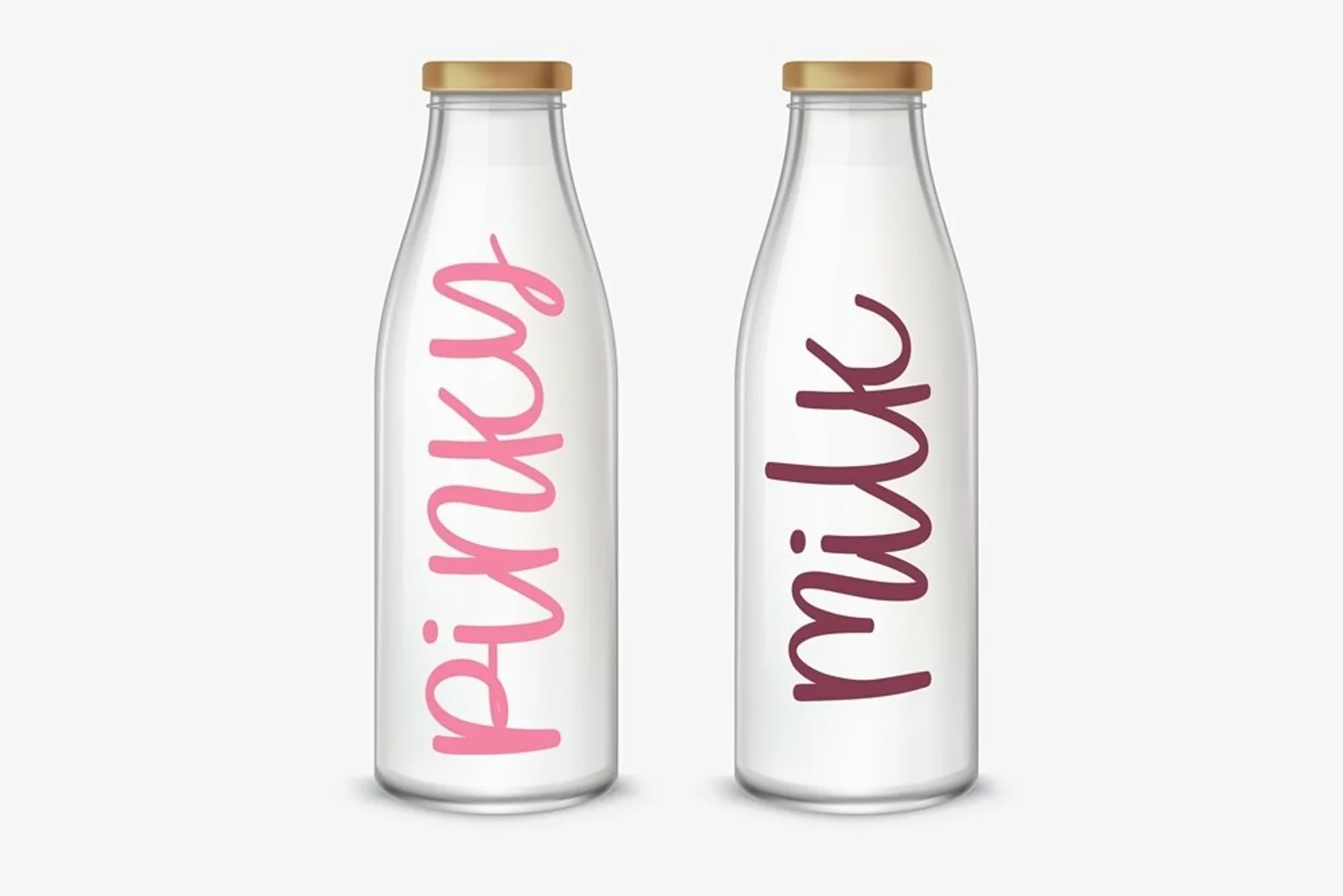
Switch your style is a cute and whimsical handwritten font. Its natural and unique style makes it incredibly fitting to a large pool of designs. Masterfully designed to become a true favorite, this font has the potential to bring each of your creative ideas to the highest level!